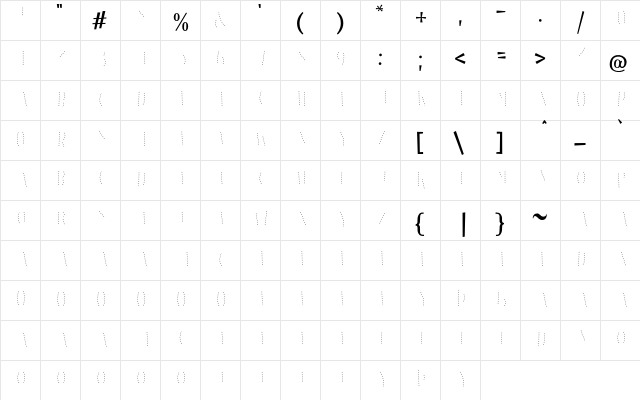
Les Paul Dashed Inline
Design Context for Les Paul Typeface
Les Paul brings ornamental detail and strong personality to headlines and identities, where visual impact matters more than quiet functionality.
Font Pairing: Pair with a clean neutral sans-serif for body copy to let Les Paul's character lead without overwhelming the composition.
Pro Tip: Use Les Paul exclusively at display sizes — it was designed to be seen, not read at length. Let a neutral companion handle body copy.